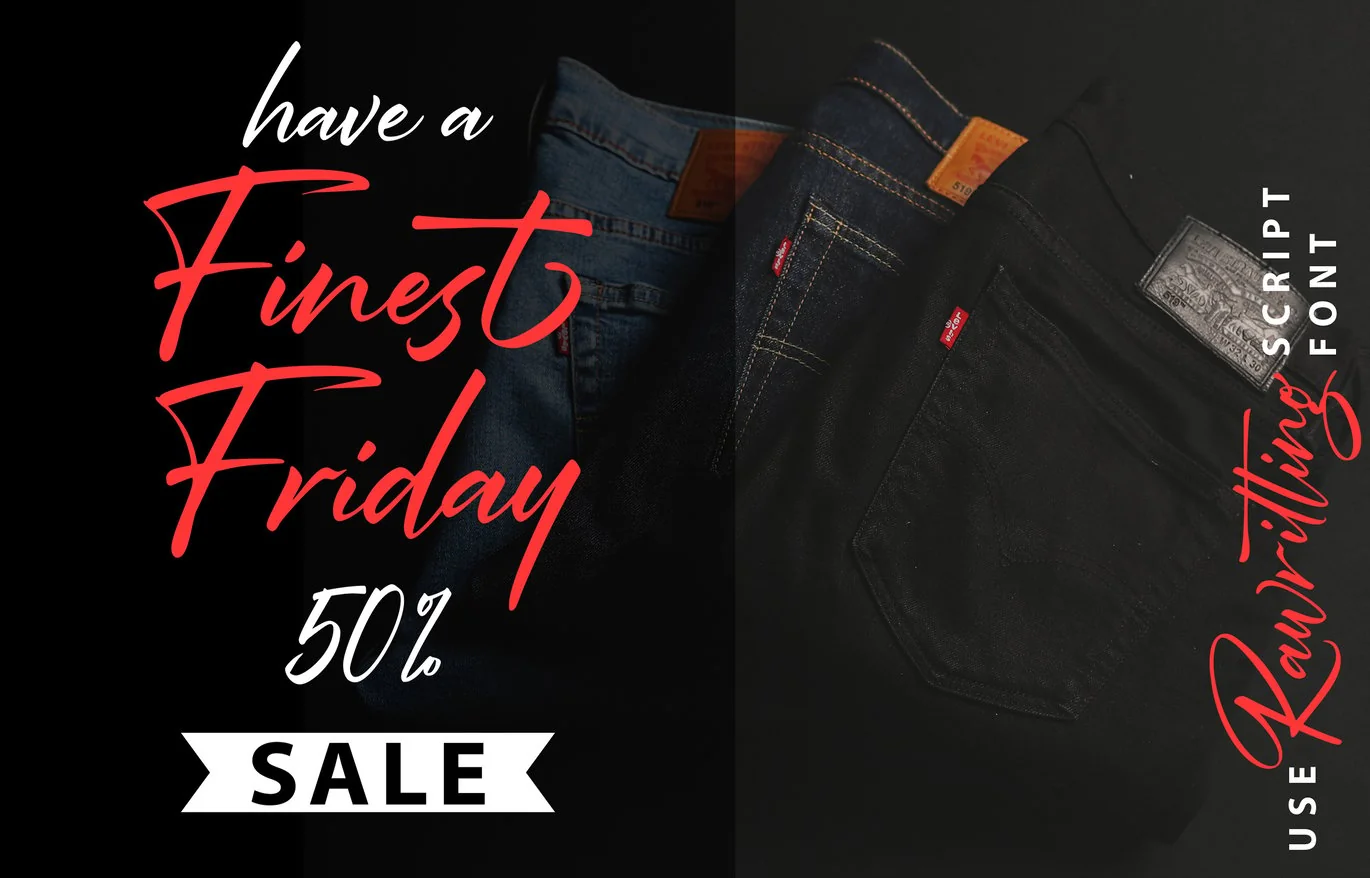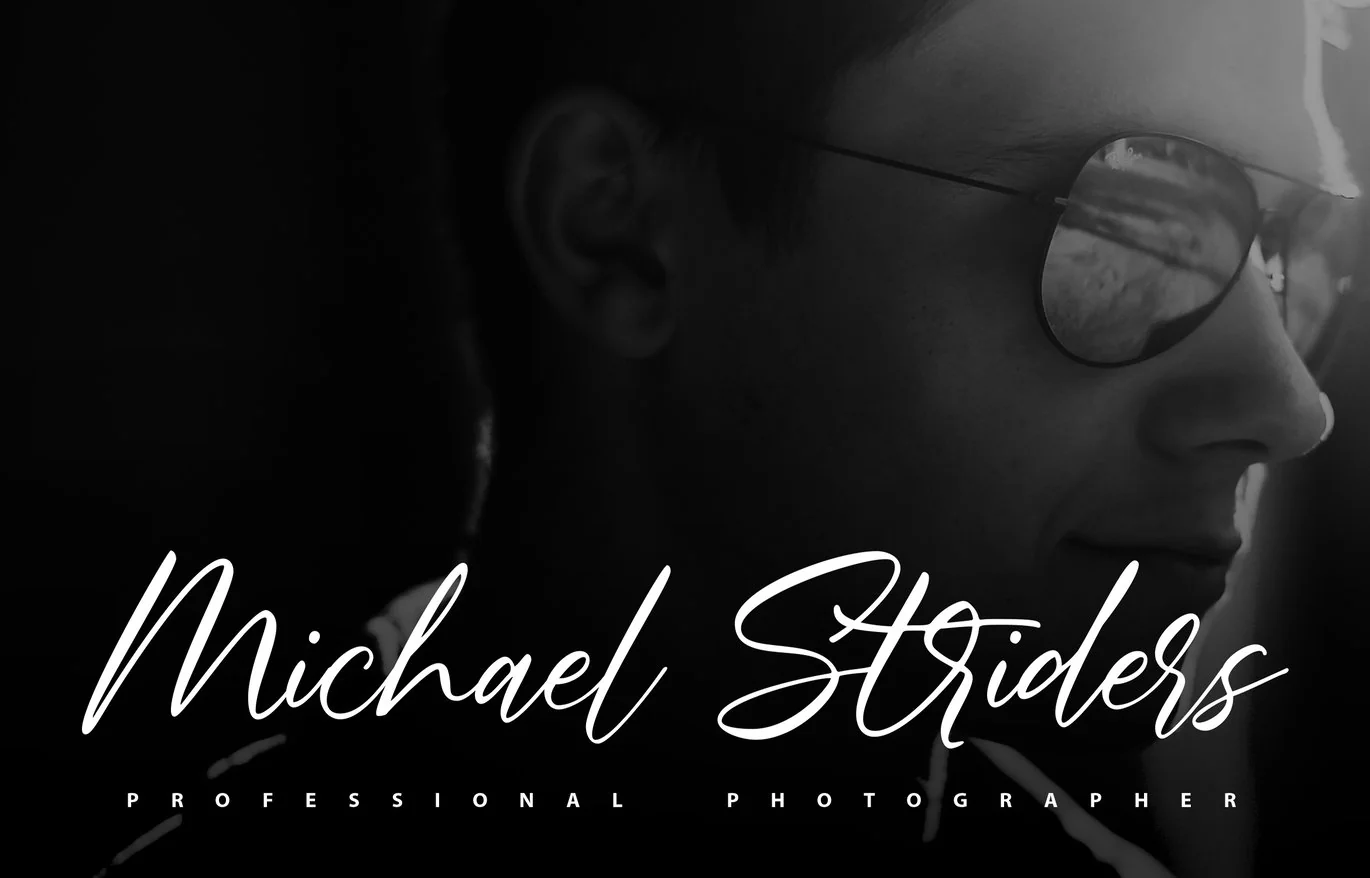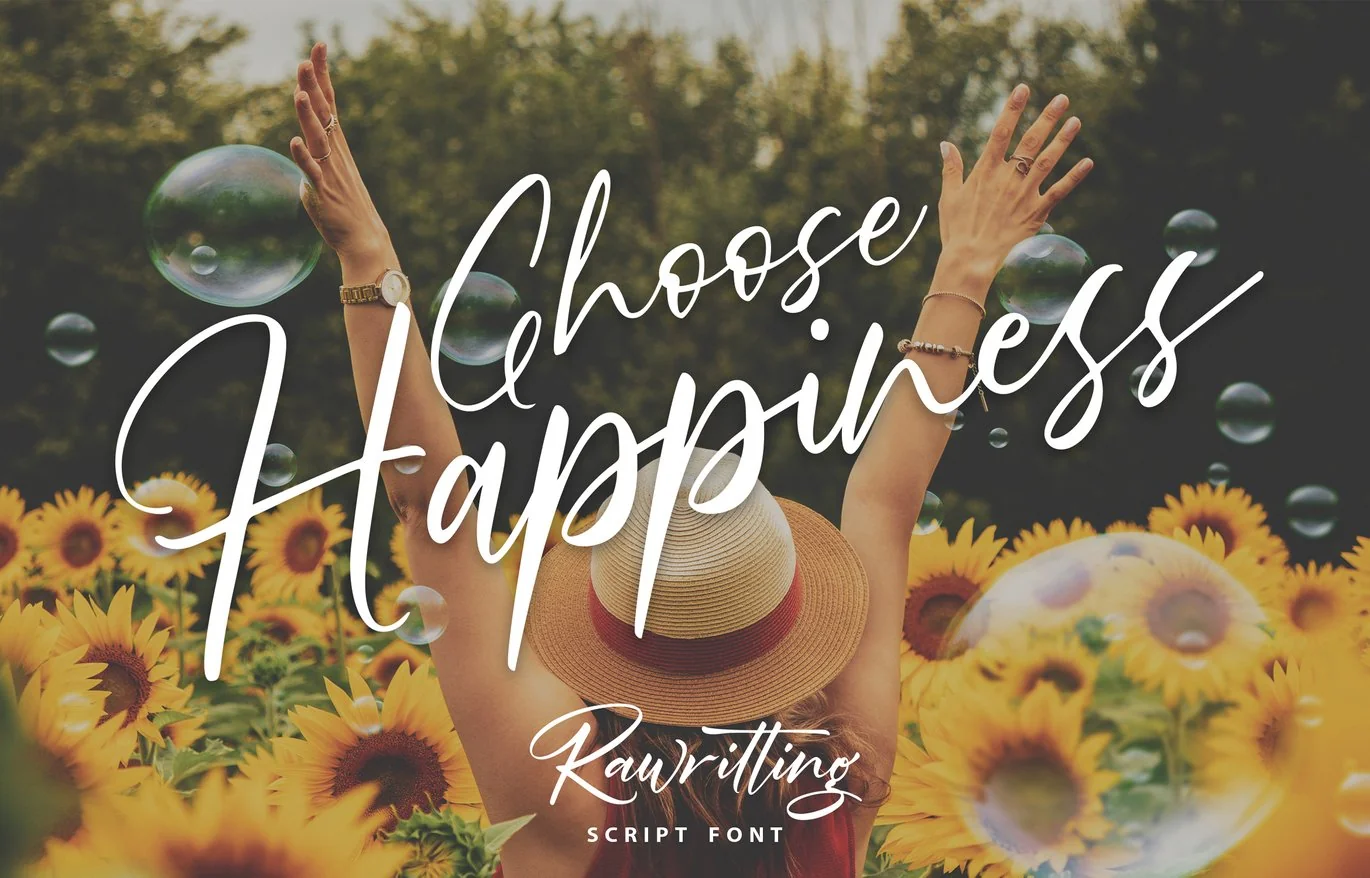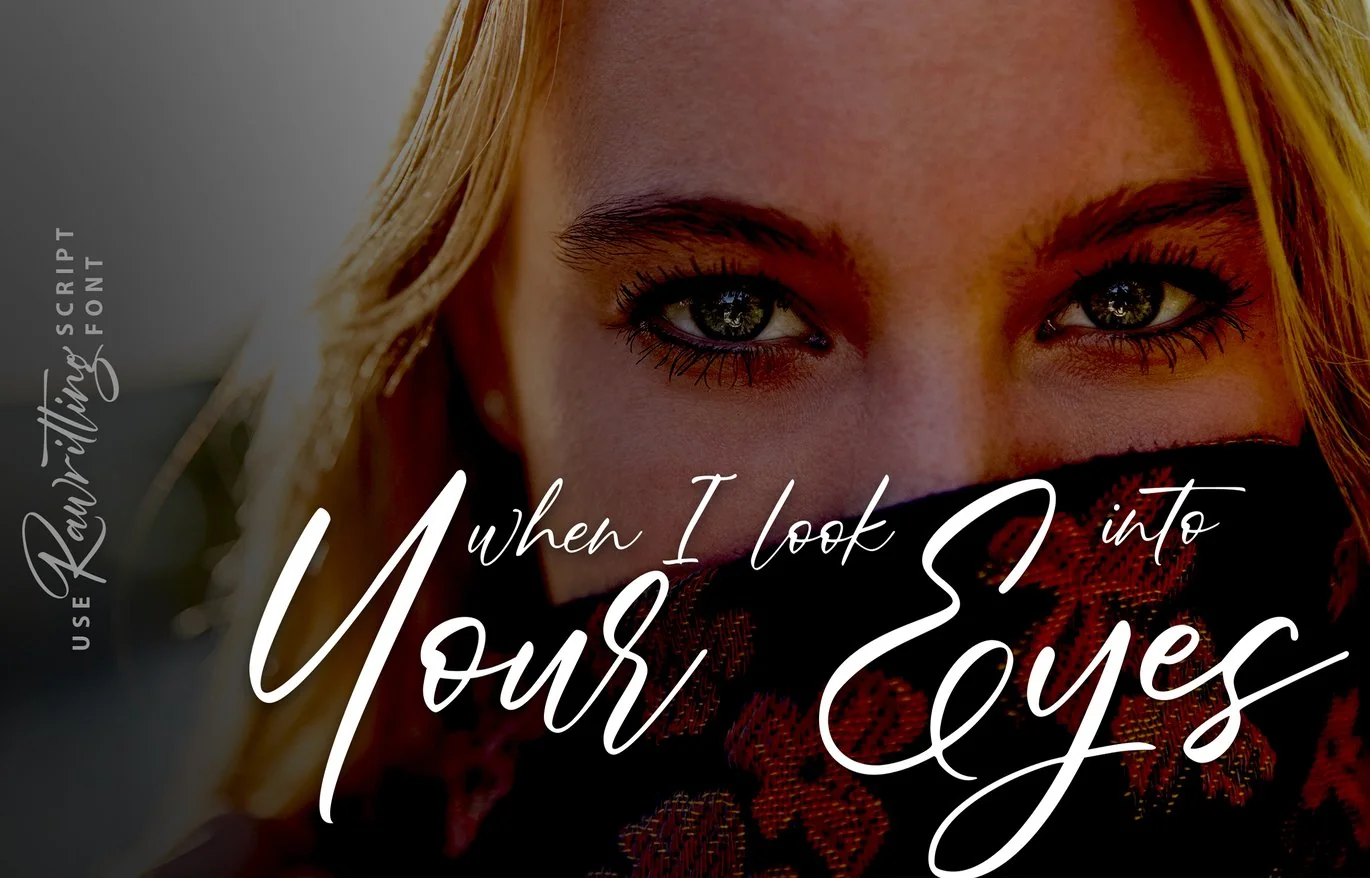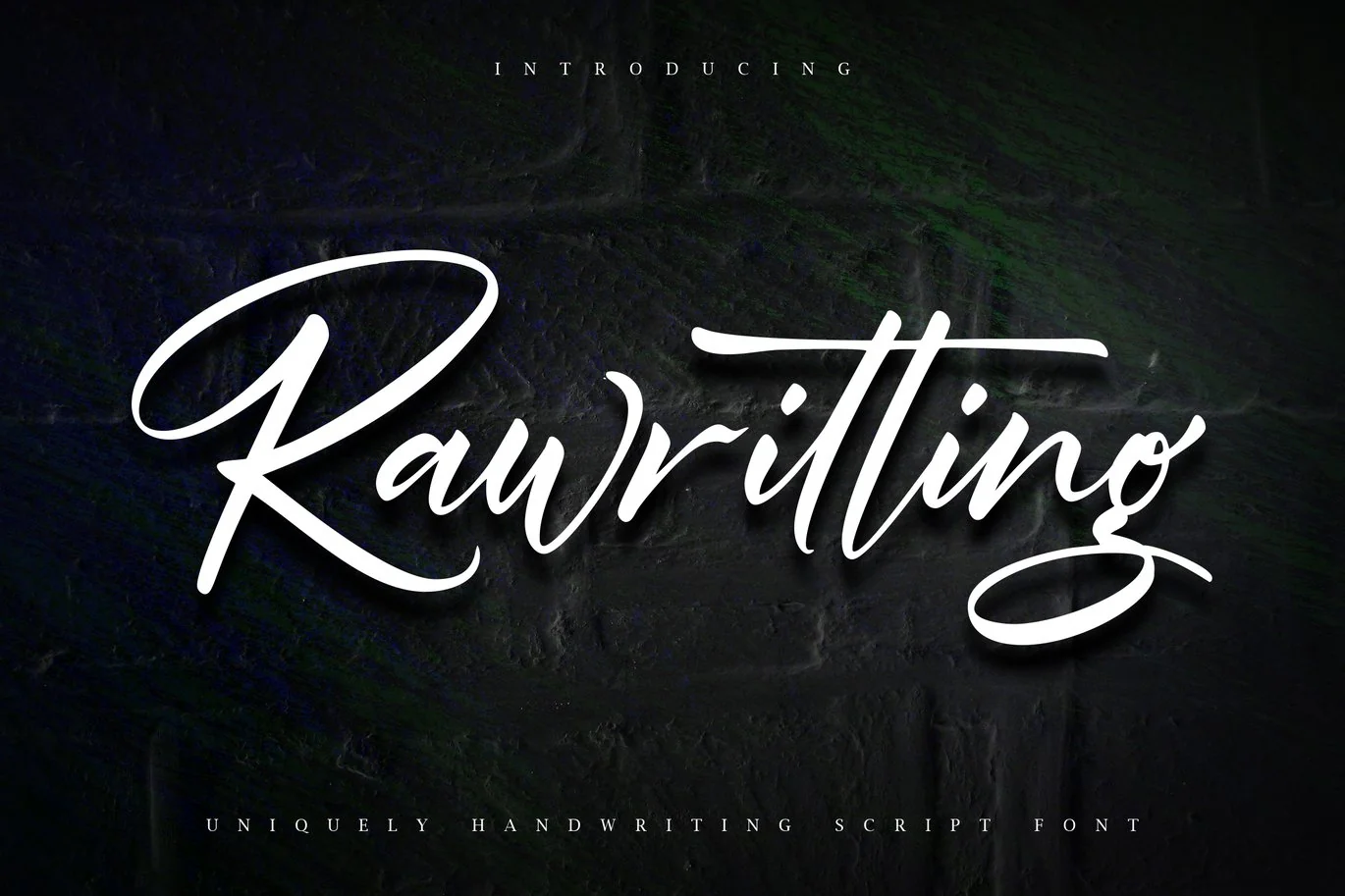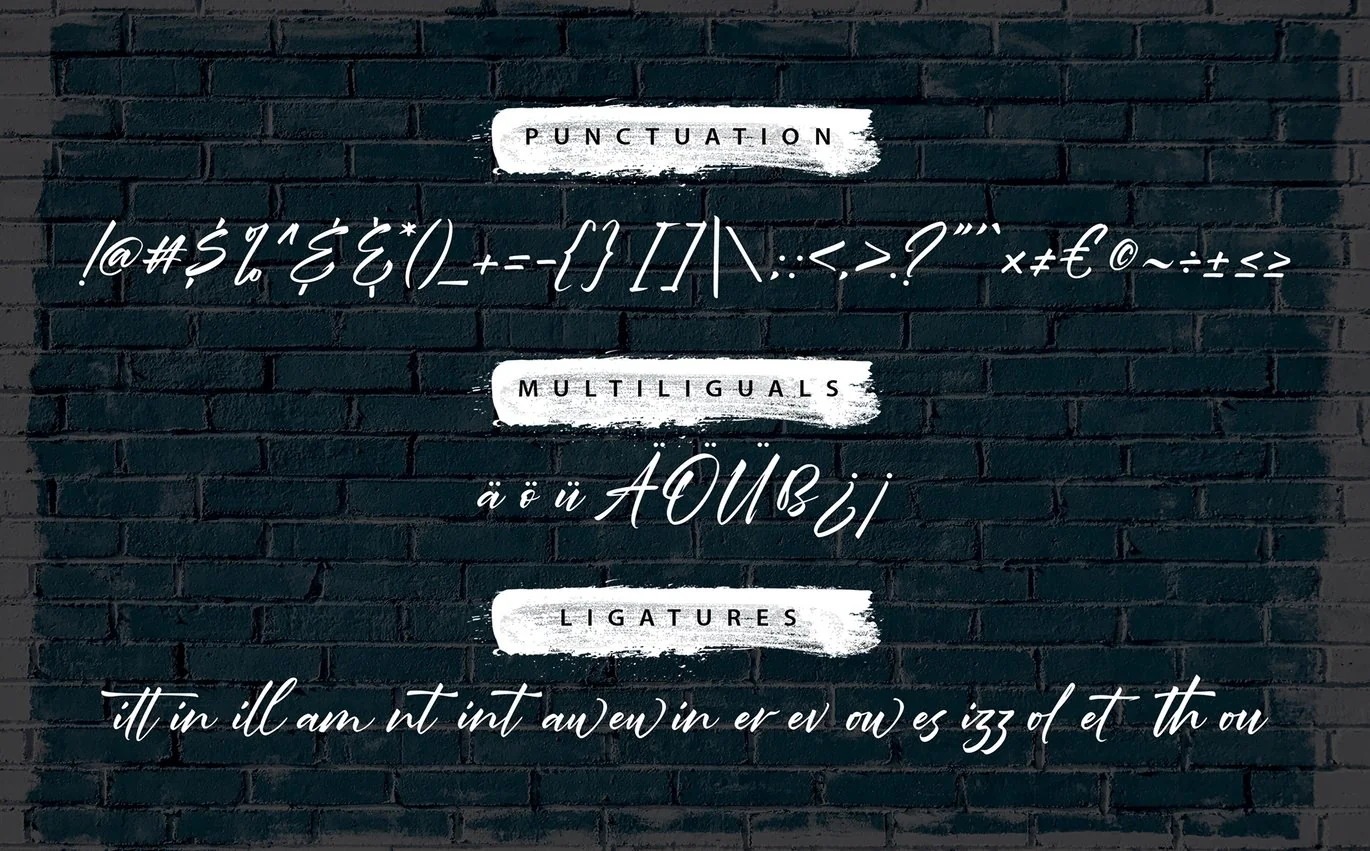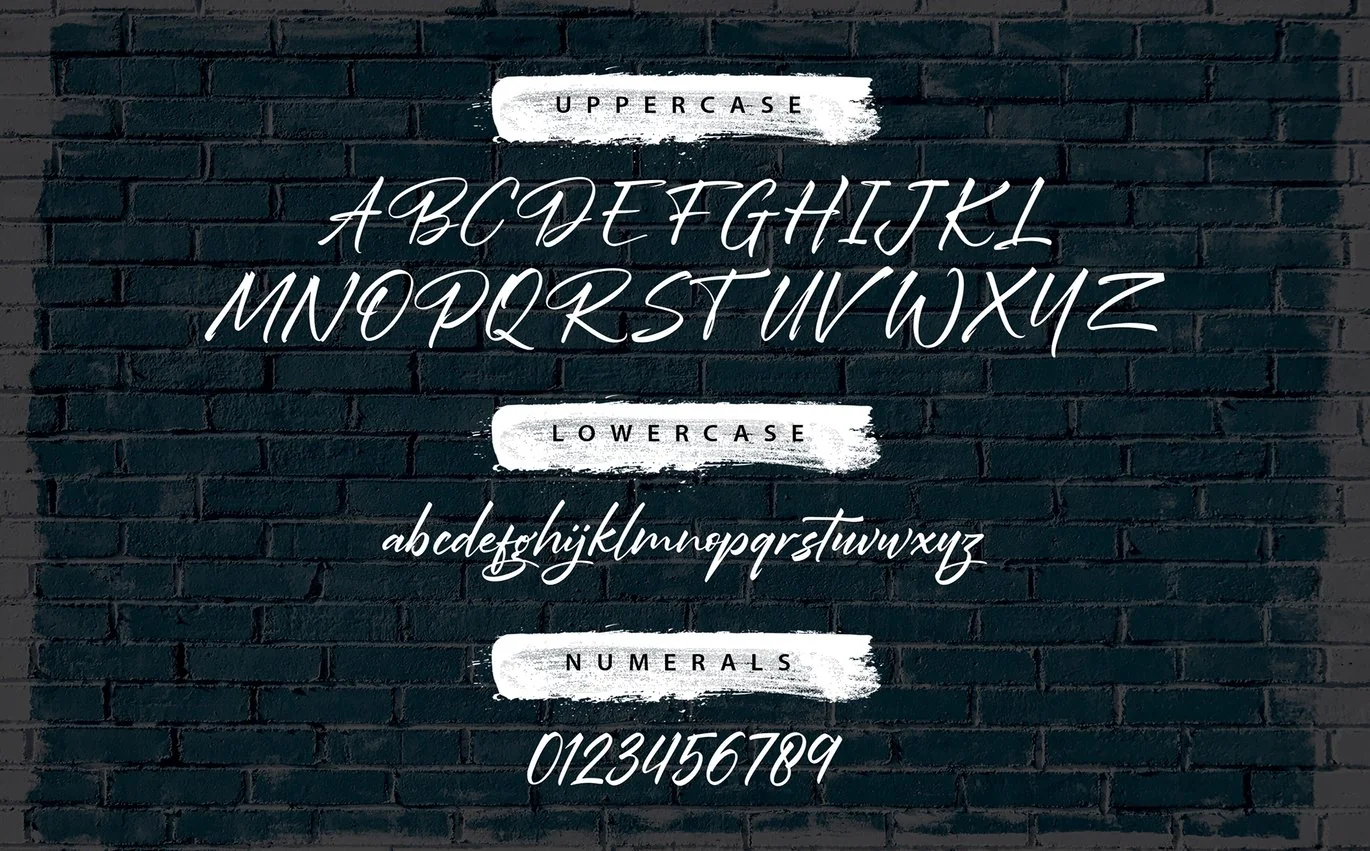
Rawriting | Uniquely Handwriting Script Font
Rawriting | Uniquely Handwriting Script Font with a calligraphy style, So beautiful on invitation like greeting cards, branding materials, business cards, quotes, posters, and more!